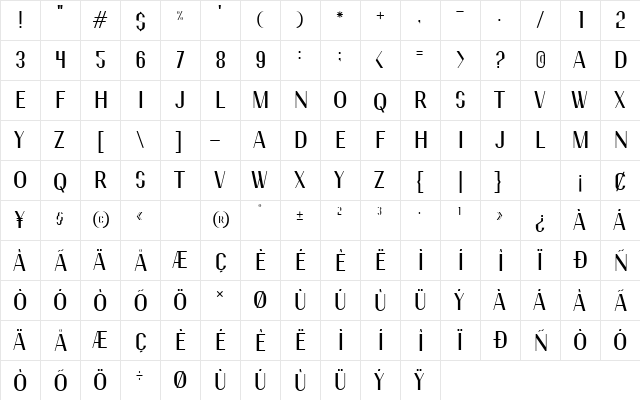
Marchellia Regular
| Foundry | Namara Creative Studio |
| Designer | Toni Setiawan | Namara Creative Studio |
Design Context for Marchellia Typeface
Marchellia is a composed and adaptable typeface that performs quietly and consistently across a wide range of design contexts.